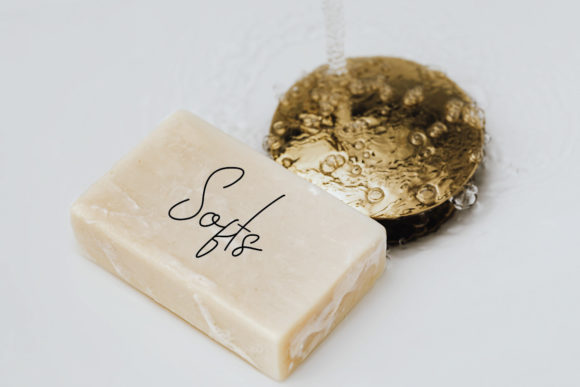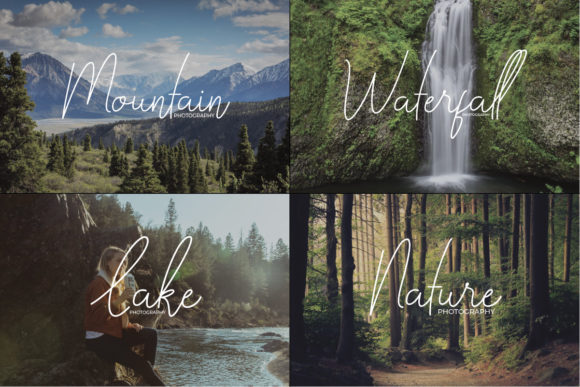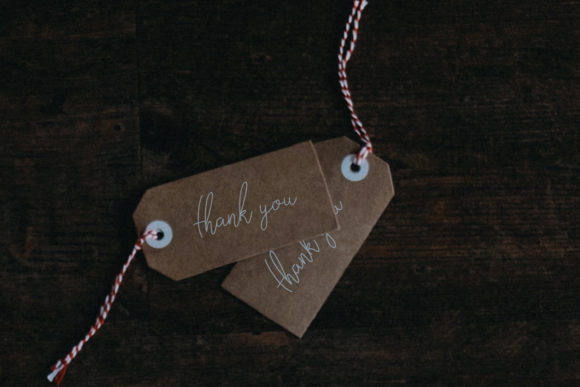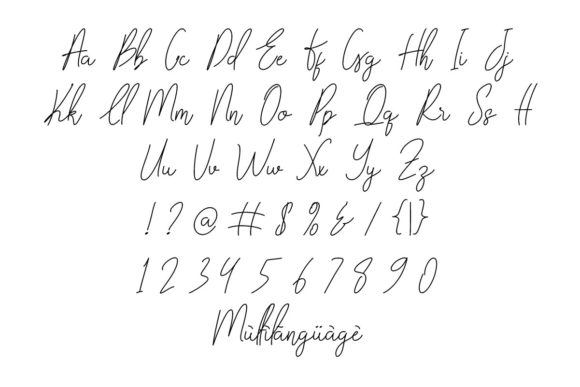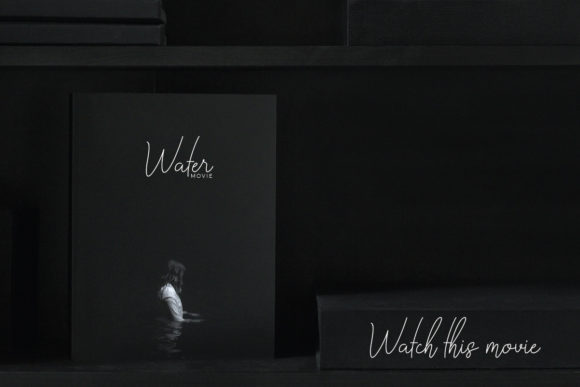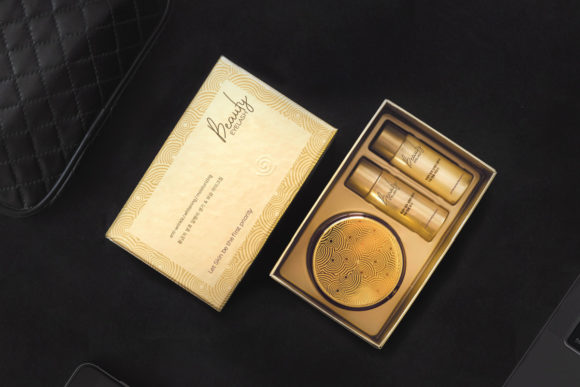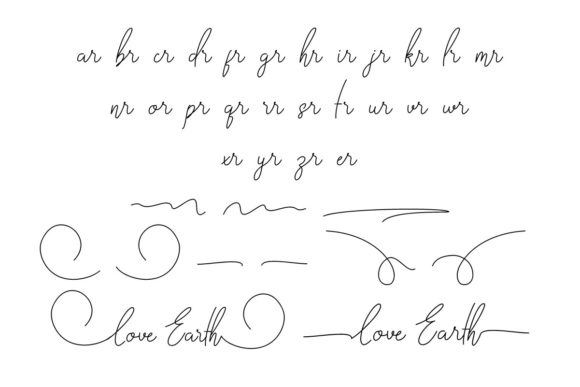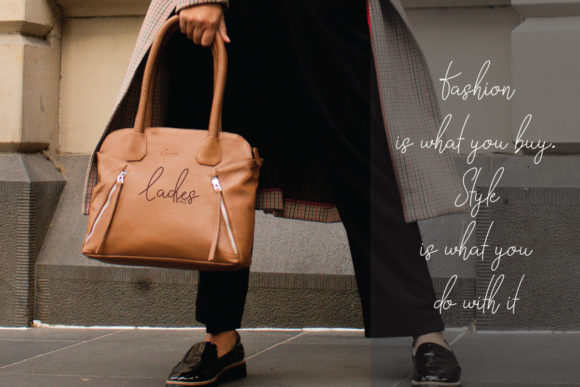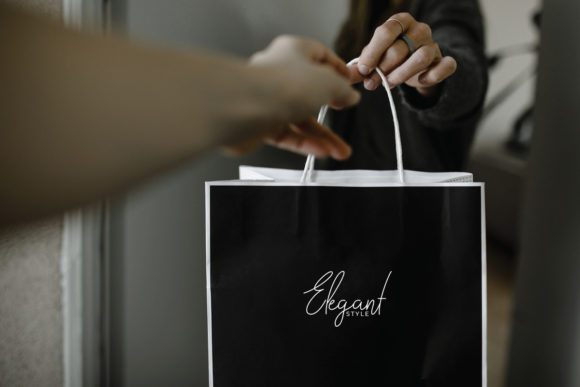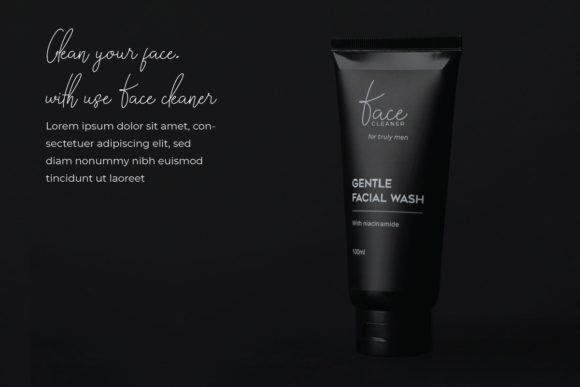
Love Earth Font
“Introducing Love Earth, a slim and delicate script font that exudes elegance and sophistication. This font has been meticulously crafted for those who require a refreshing and stunning aesthetic in their designs.
Love Earth is not just a font; it’s a design tool that brings your creative vision to life. Its slim and delicate nature is a testament to the beauty of handwritten script, adding a personal touch to any project it graces. Whether you’re designing a logo for a high-end brand, creating invitations for a posh event, or simply adding a touch of class to your website, Love Earth is the font for the job.
The versatility of Love Earth allows it to be used across a wide array of applications, catering to diverse needs and requirements. Its beautiful and balanced character fits well with a large design pool, making it a versatile choice for a wide range of applications.
But the beauty of Love Earth doesn’t stop at its appearance. It’s also designed with SEO in mind. In the digital age, visibility is key, and this font is crafted to help your content stand out. It’s not just about looking good; it’s about being found.
SEO, or Search Engine Optimization, is a crucial aspect of digital content creation. It involves optimizing your content to rank higher in search engine results, increasing visibility and driving more traffic to your site. With Love Earth, your content won’t just be aesthetically pleasing; it’ll also be SEO-friendly.
Moreover, Love Earth is PUA encoded, which means you can access all of the amazing glyphs and swashes with ease! This feature allows designers to unlock the full potential of the font, using its extensive range of characters to create truly unique designs.
This means that when you use Love Earth, you’re not just creating content; you’re creating content that works for you. It’s a font that helps your content get noticed, drawing in readers and keeping them engaged. It’s a font that works as hard as you do.
In conclusion, Love Earth is more than just a pretty face. It’s a powerful tool that can help you create stunning, SEO-friendly content. It’s a font that was crafted with care, designed to deliver the results you want. So why wait? Start creating with Love Earth today, and see the difference it can make in your work.”